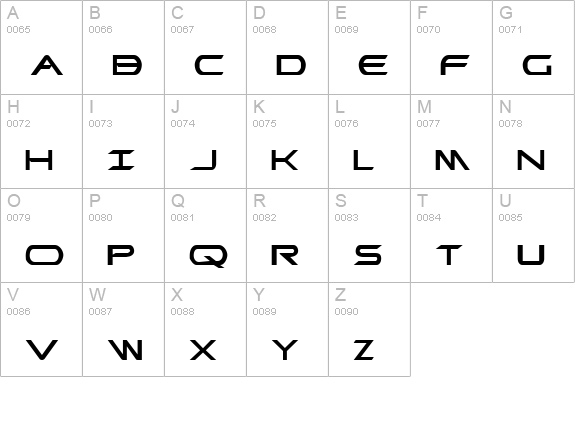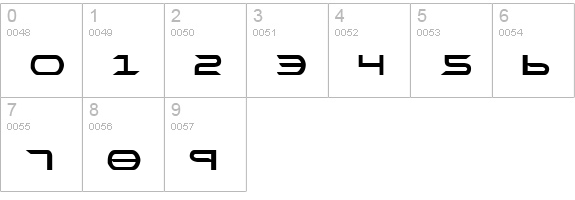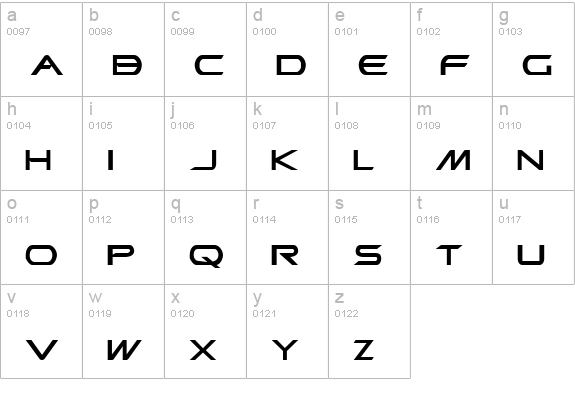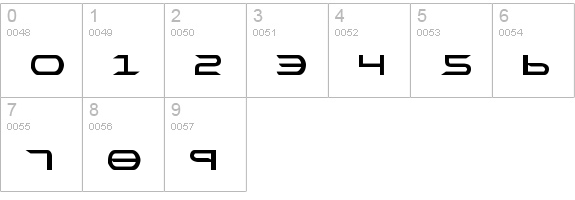
Promethean Expanded is a distinctive, extended-width variant in the Promethean typeface family \xE2\x80\x94 well suited to design and typography projects.
Promethean Expanded font is a versatile and modern typeface that exudes sophistication and elegance. Its clean lines and bold presence make it perfect for a variety of design projects, from branding to editorial layouts. Whether you're looking to make a statement or add a touch of sophistication to your designs, Promethean Expanded font is sure to impress. The best part is that this stunning font is available for free download at FontsMarket.com. Now you can elevate your design projects without breaking the bank. Don't miss out on the opportunity to add Promethean Expanded font to your collection today and take your designs to the next level.